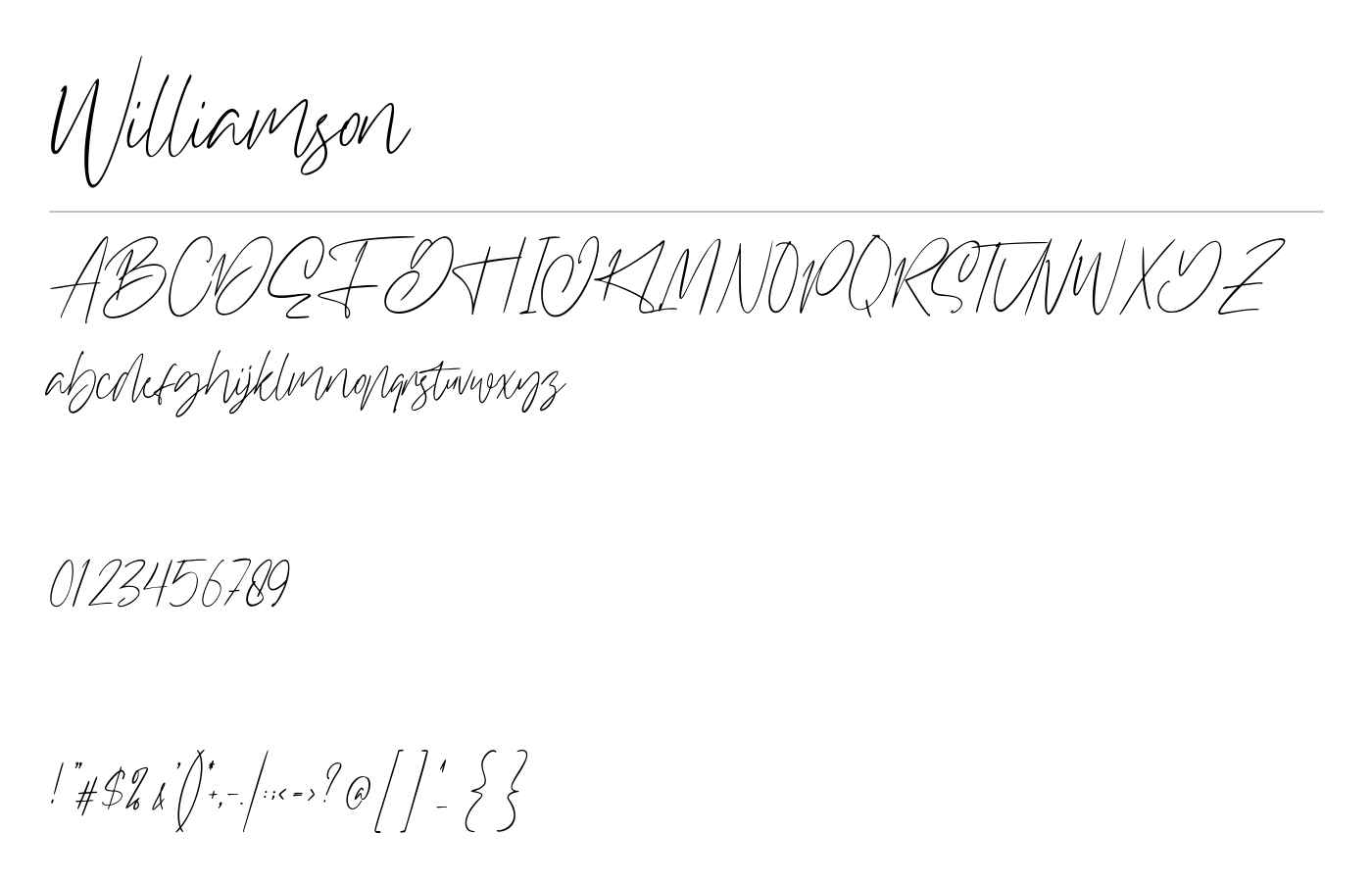
Williamson is a delicate and elegant handwritten script font characterized by its thin, flowing strokes and slightly irregular letterforms that mimic natural penmanship. Its light weight and airy spacing give it a modern, personal feel, making it ideal for use in invitations, branding, and artistic projects where a touch of sophistication and individuality is desired. This font's graceful style works especially well for creative headlines and logos that require a refined yet approachable look.
Williamson Font
About Williamson Font
| Font family | Williamson Font |
| Designer | Stringlabs |